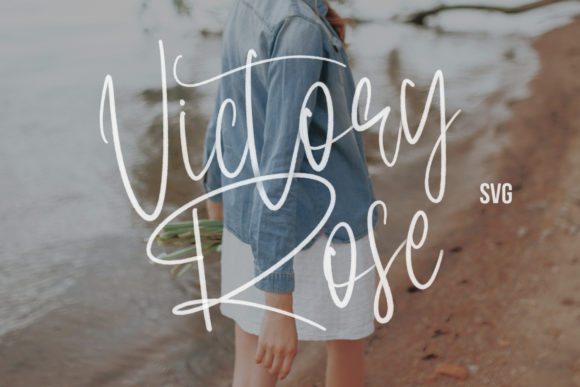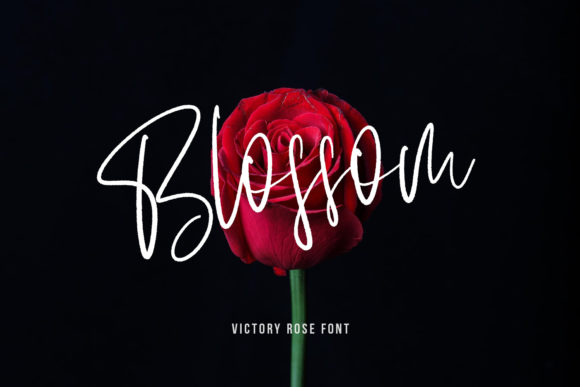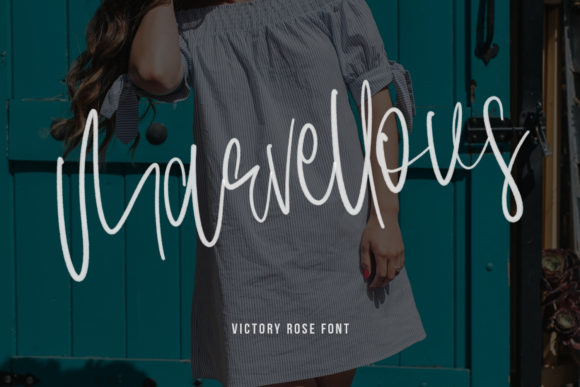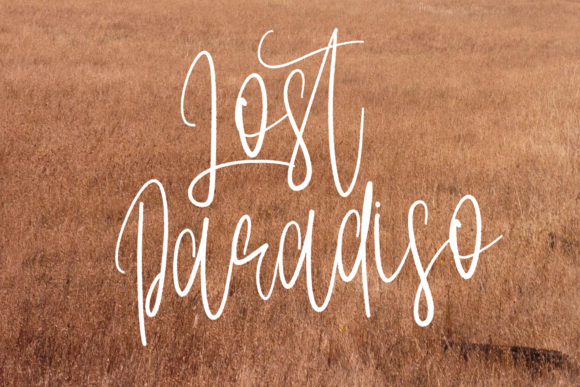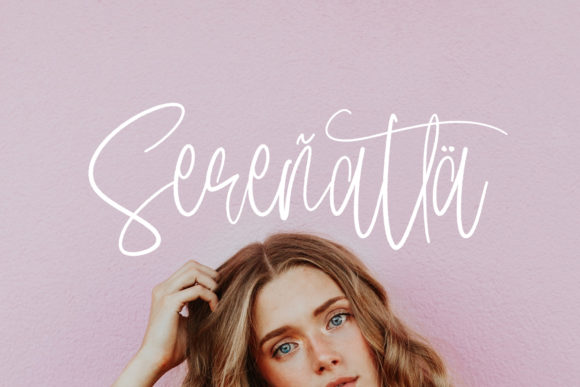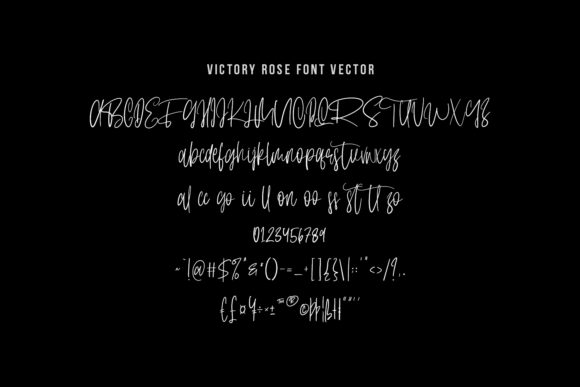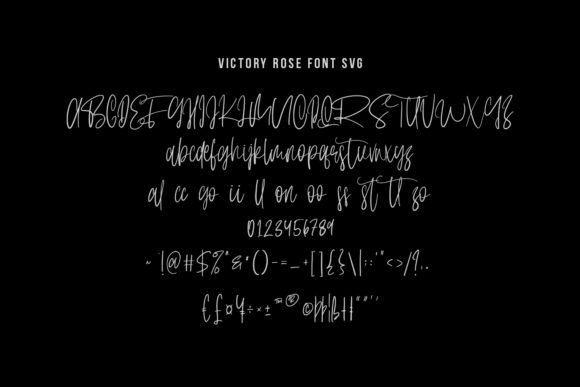
Victory Rose Font
About Victory Rose Font
Victory Rose simplifies elegance into one truly outstanding script font. It features an authentic handcrafted brush style and it is perfect for logos, stationery, quotes, book covers, magazines, branding and much more!